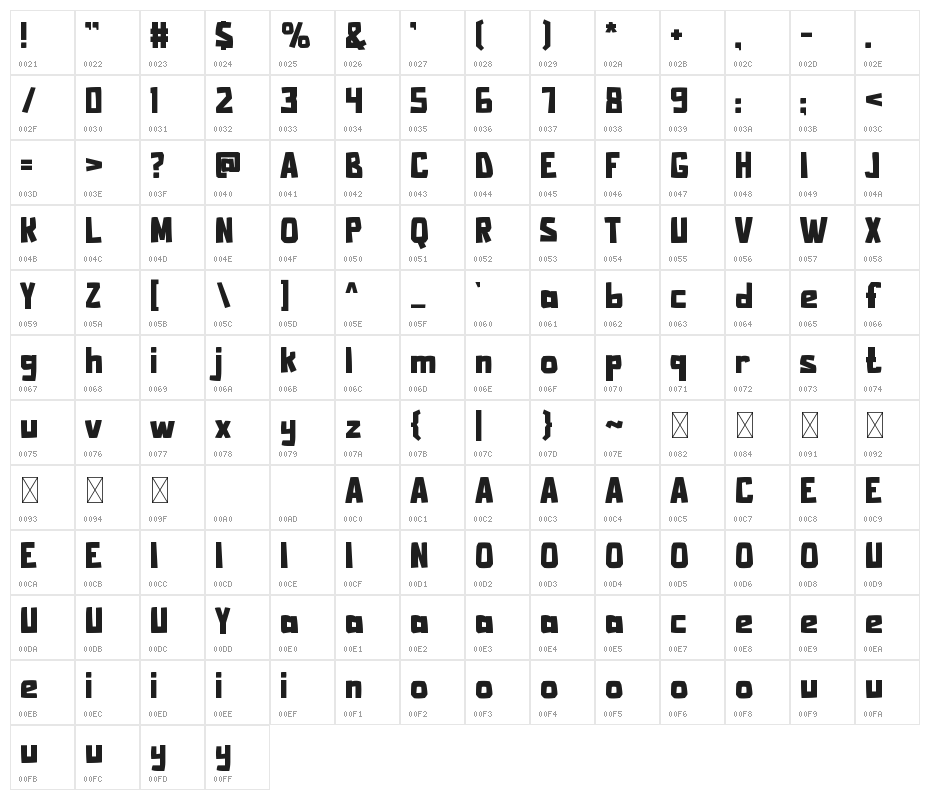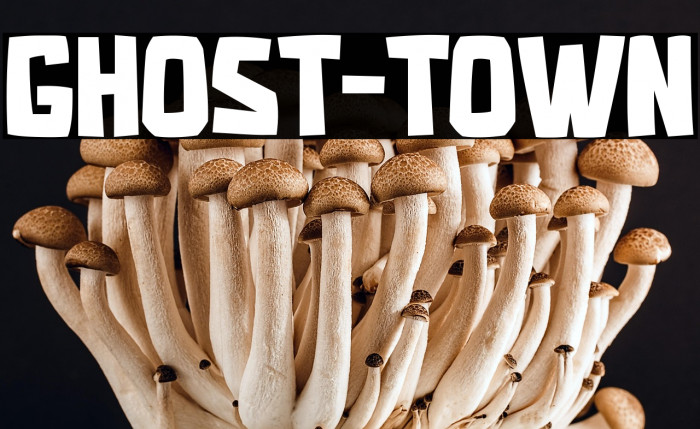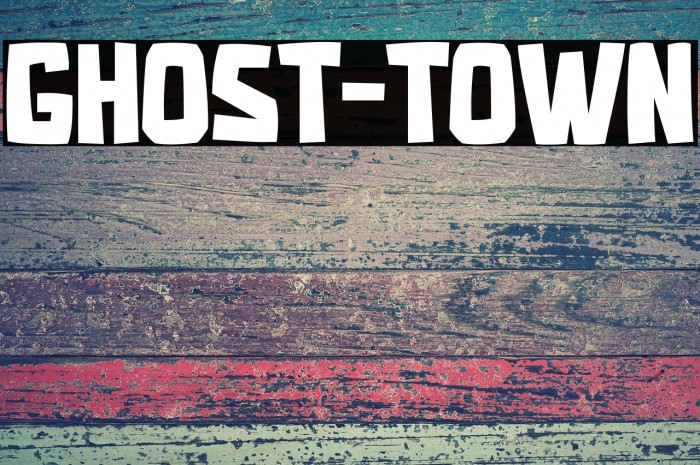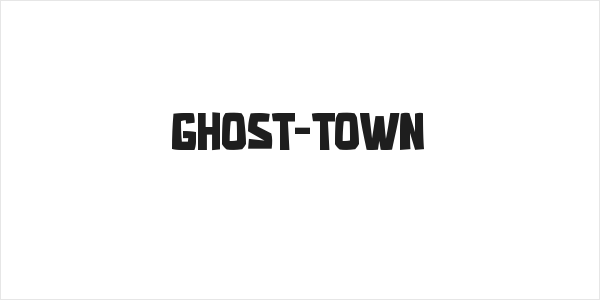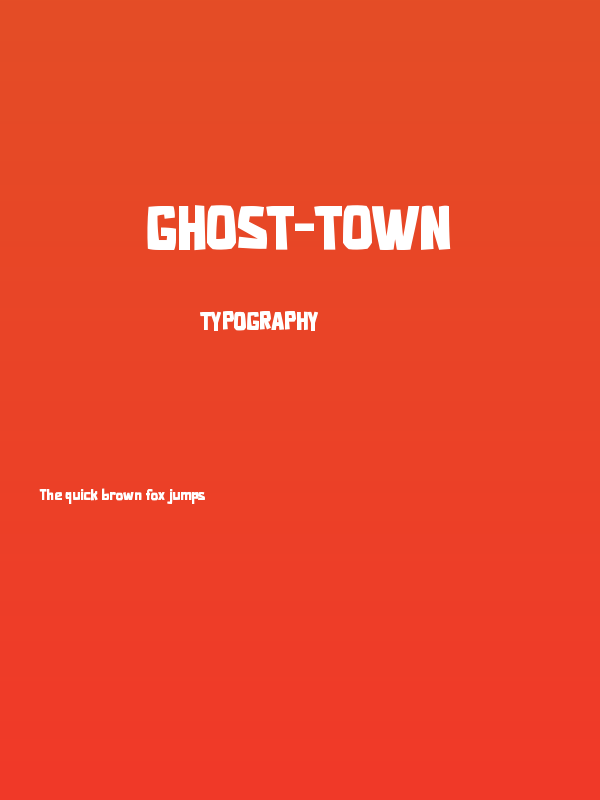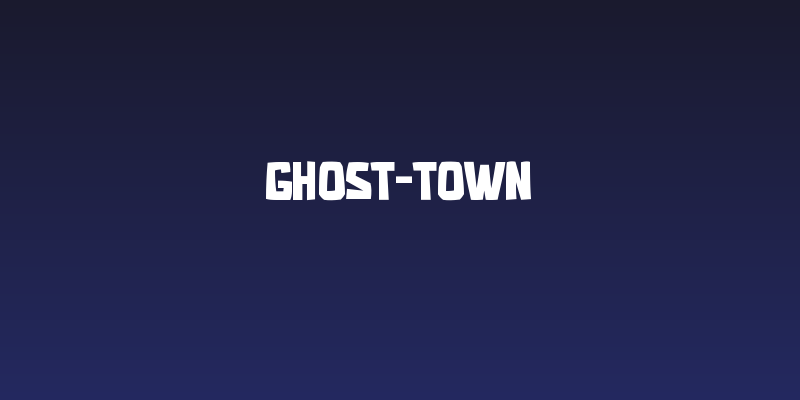
GHOST-TOWN Font
GHOST-TOWN Description
This font features a bold and rugged design, characterized by its uneven and slightly distorted letterforms. The uppercase and lowercase letters share a consistent style, with thick strokes and angular edges that give it a hand-drawn, rustic appearance. The numbers and special characters maintain this aesthetic, providing a cohesive look across all glyphs. The font's unique style evokes a sense of the wild west or a ghost town, making it ideal for projects that require a vintage or themed look.
| Proposed Projects | Ideal for themed posters, vintage branding, event flyers, and creative projects that require a rustic or western aesthetic. |